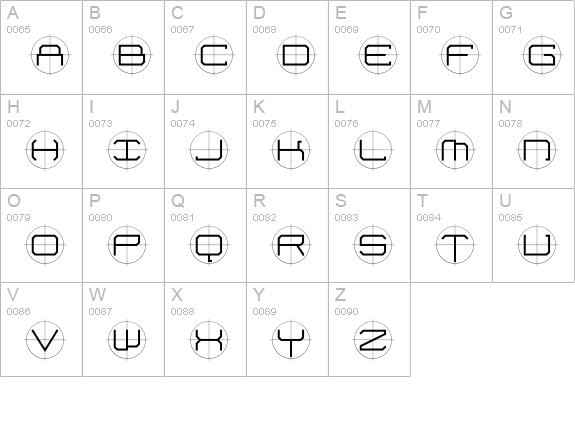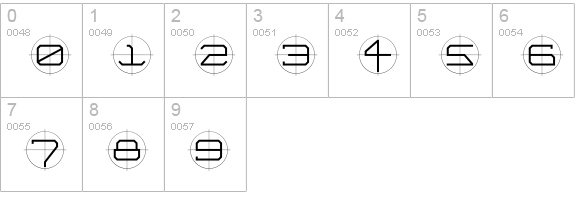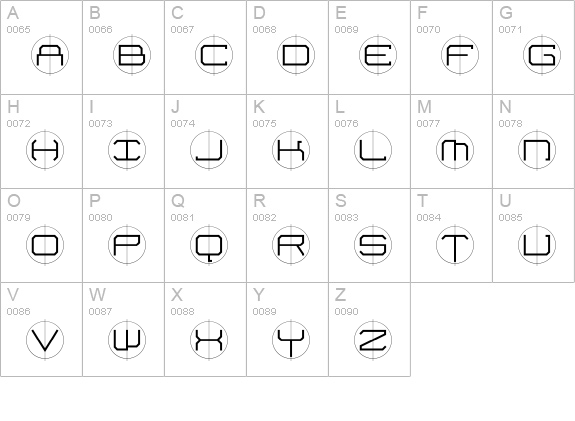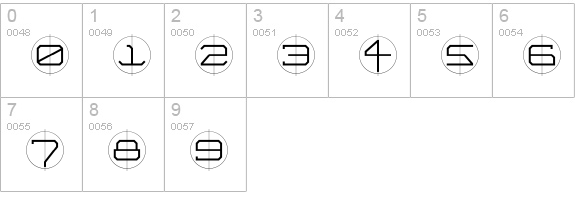
FutureKill-Light is a refined, elegant variant in the FutureKill typeface family \xE2\x80\x94 well suited to elegant body text, refined sub-headings, and luxury branding.
FutureKill-Light font is a sleek and modern typeface that exudes a sense of futuristic sophistication. Its clean lines and sharp edges give it a distinct and cutting-edge appearance, making it perfect for projects that require a contemporary feel. The light weight of the font adds a touch of elegance and refinement, making it suitable for a variety of design applications. Best of all, FutureKill-Light font is completely free to download at FontsMarket.com. This means you can add this stylish font to your collection without any cost, making it an excellent choice for budget-conscious designers looking to elevate their work. Don't miss out on this opportunity to enhance your projects with the striking aesthetic of FutureKill-Light font - download it today and let your creativity shine!